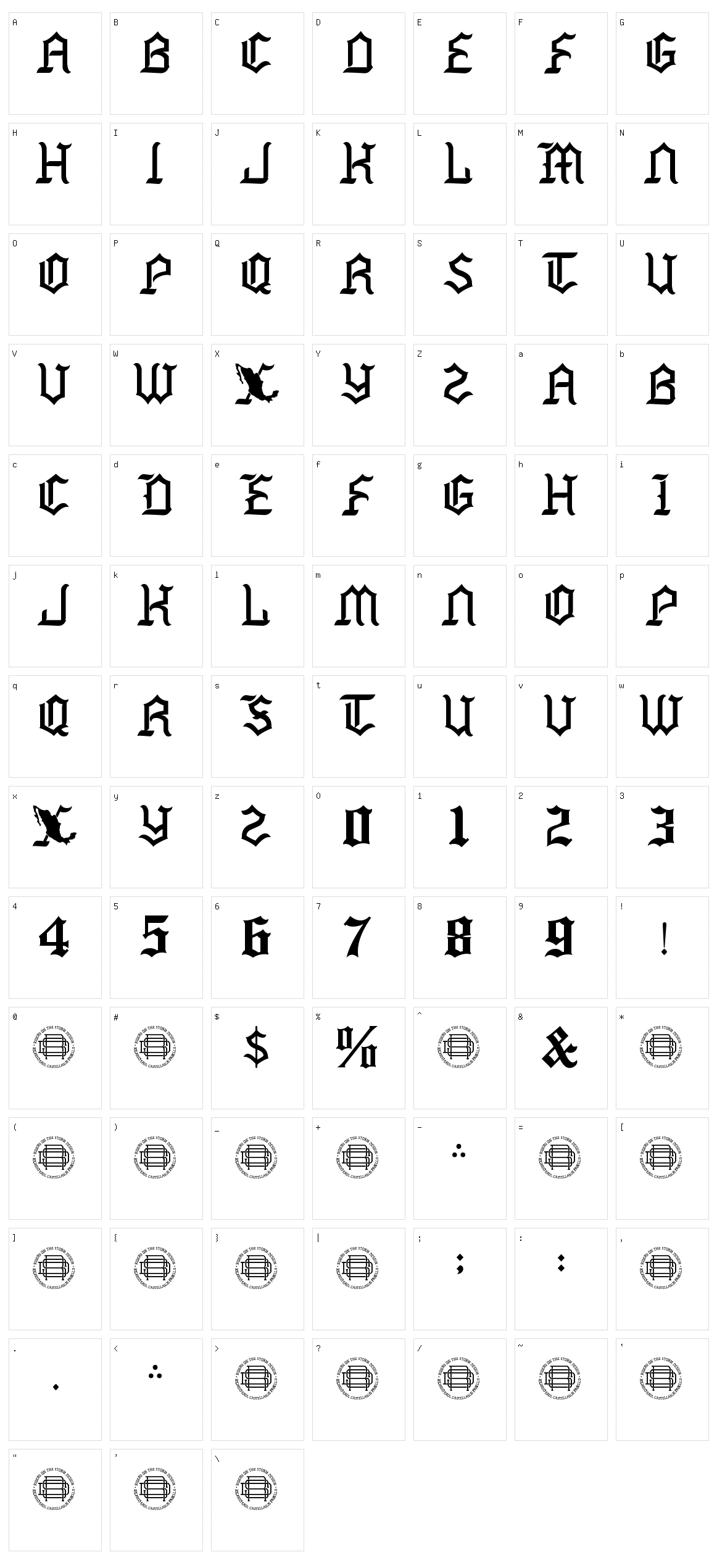
Mexside
Designed by: Richie Mx
Mexside is a typeface inspired by the style of letters of the urban culture of Cholos / Gangs,
by Ricardo Saul Castellanos Pabello "Richie Mx" in the design studio "Riders on the Storm Design"
Mexside es una tipografía inspirada en el estilo de letras de la cultura urbana de Cholos / Pandillas,
creada por Ricardo Saul Castellanos Pabello "Richie Mx" en el estudio de diseño "Riders on the Storm Design"